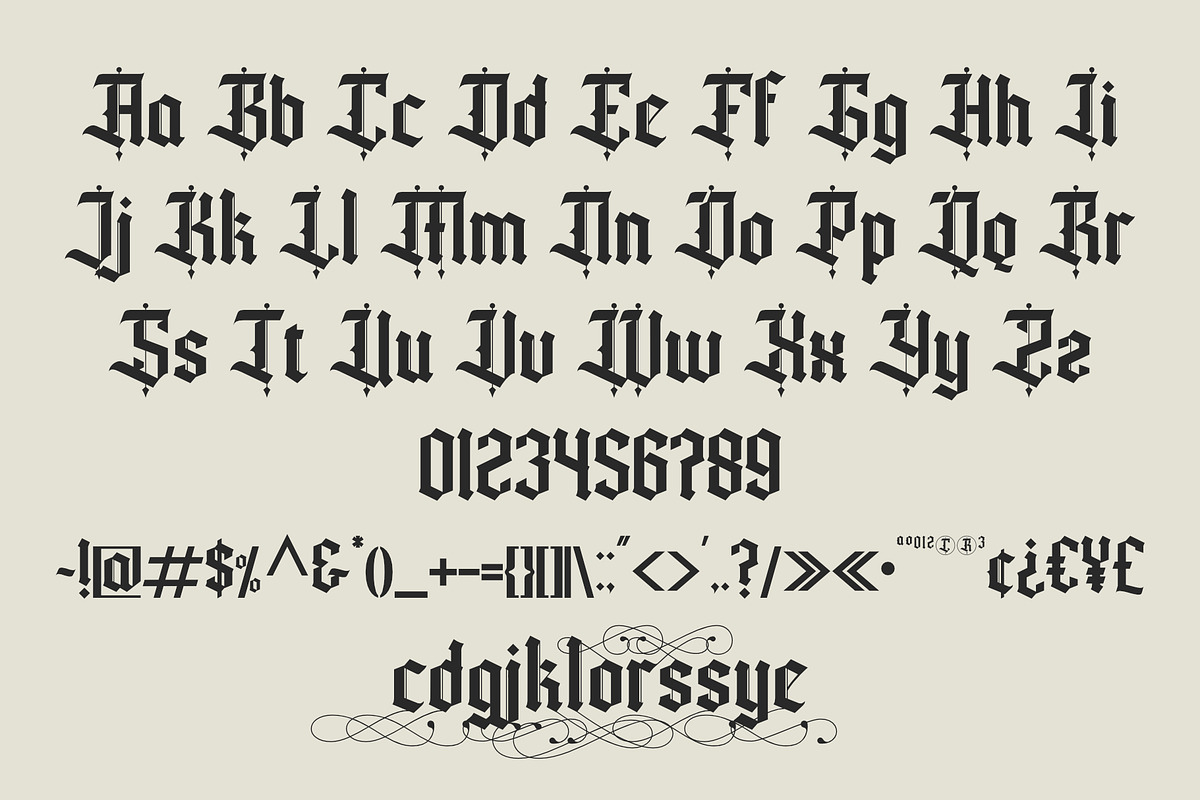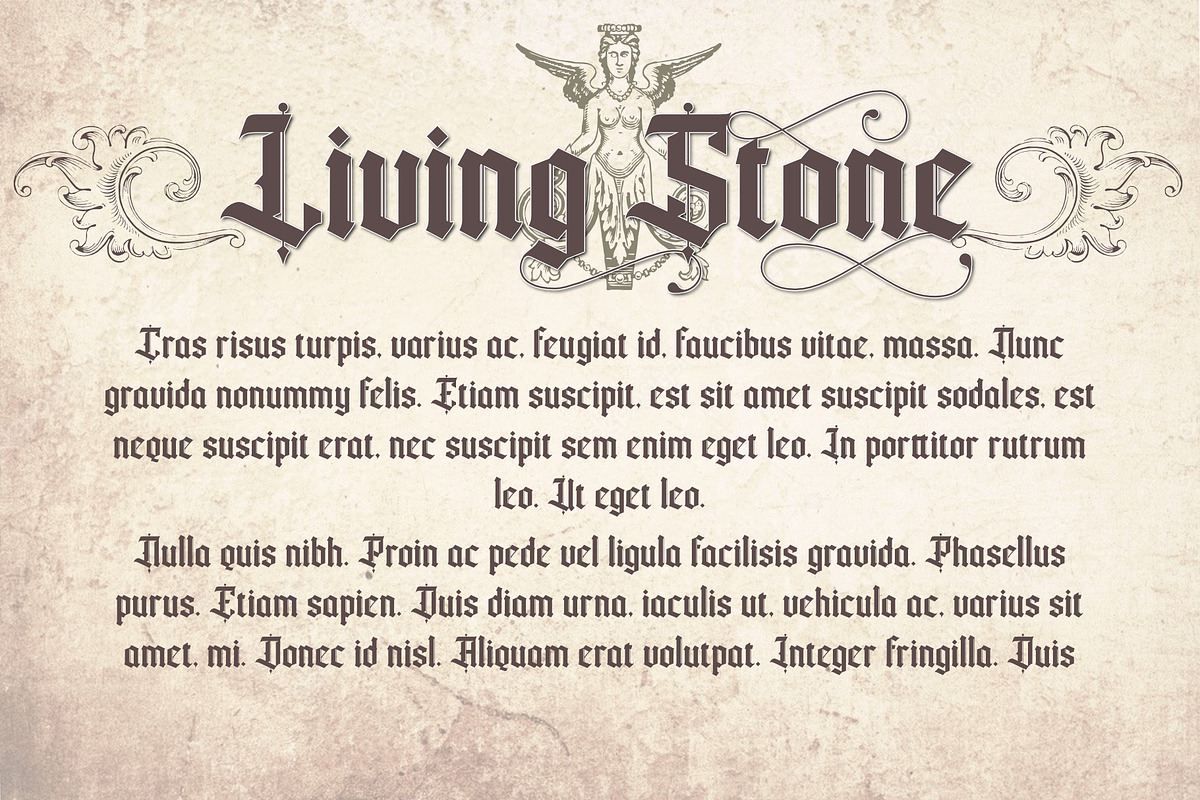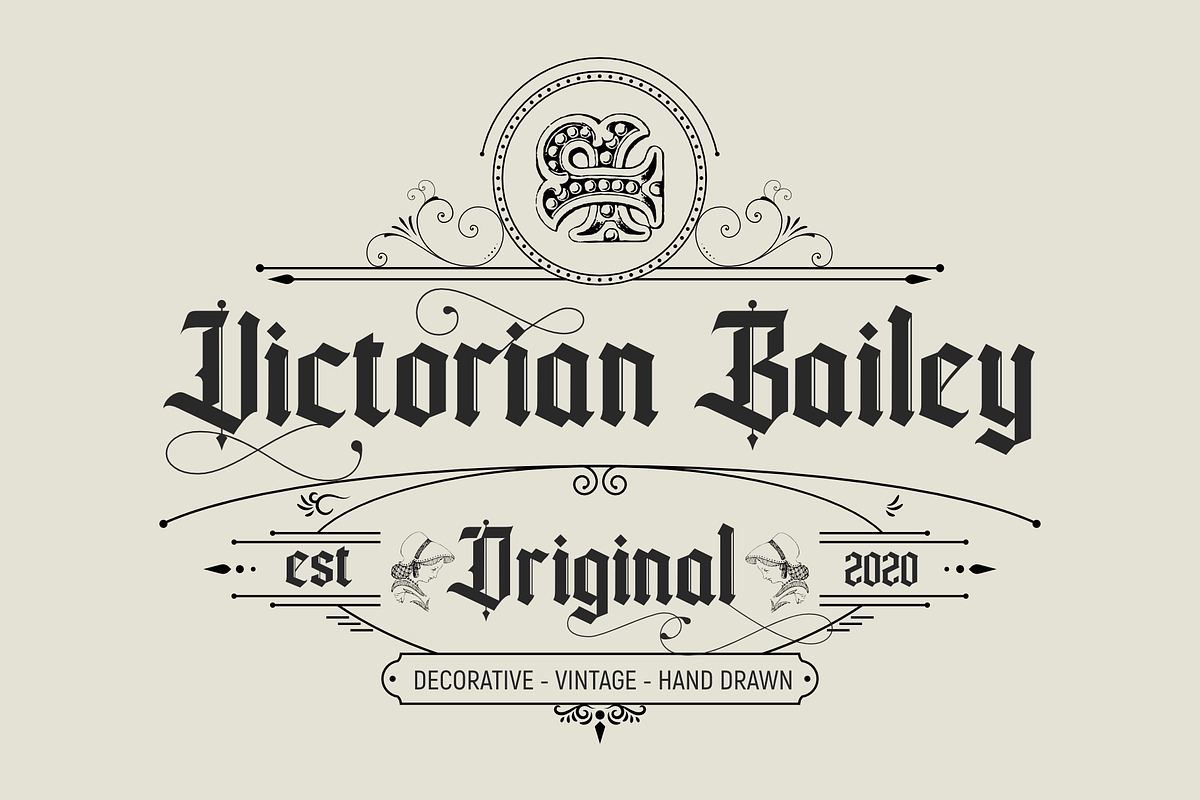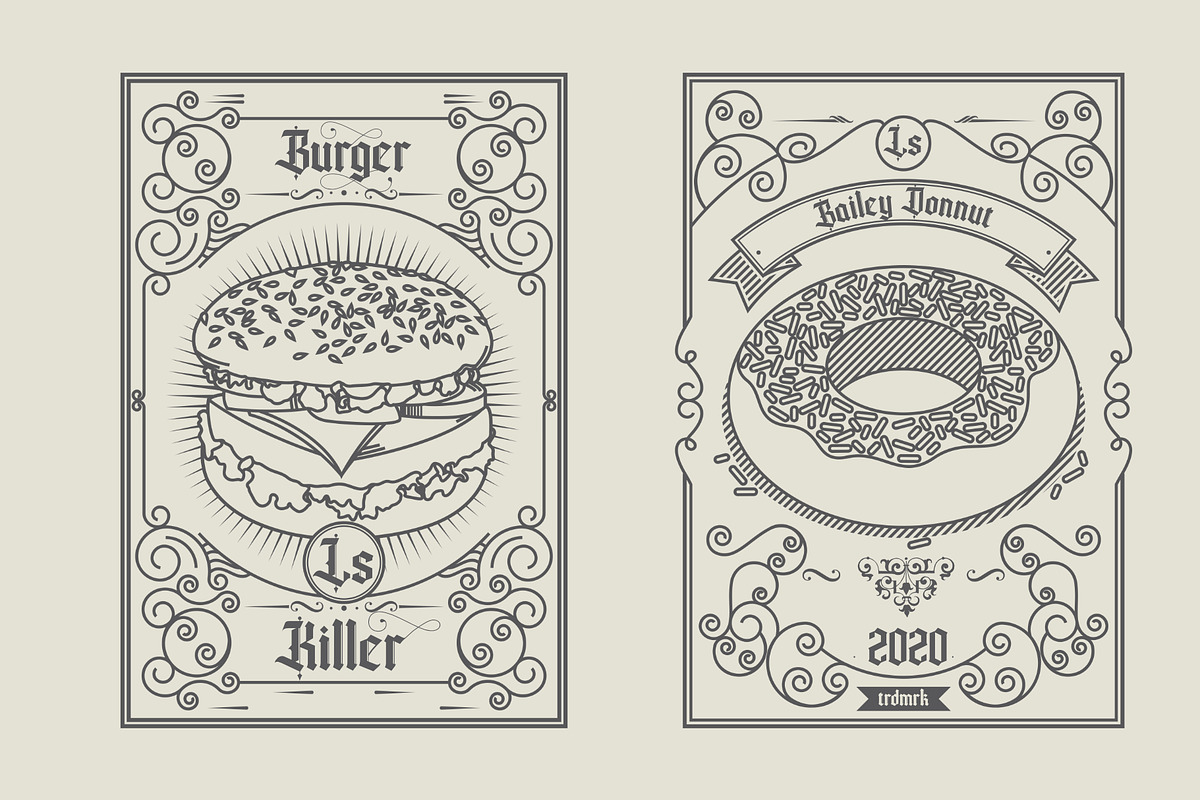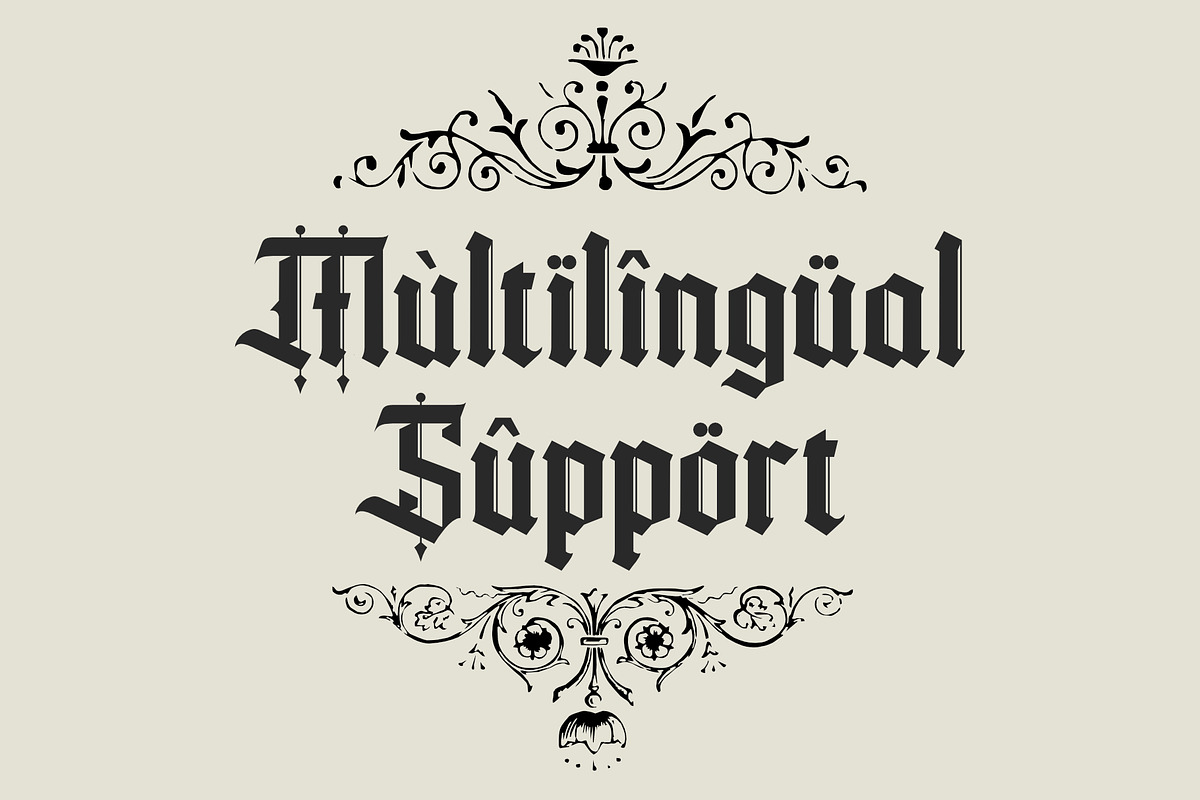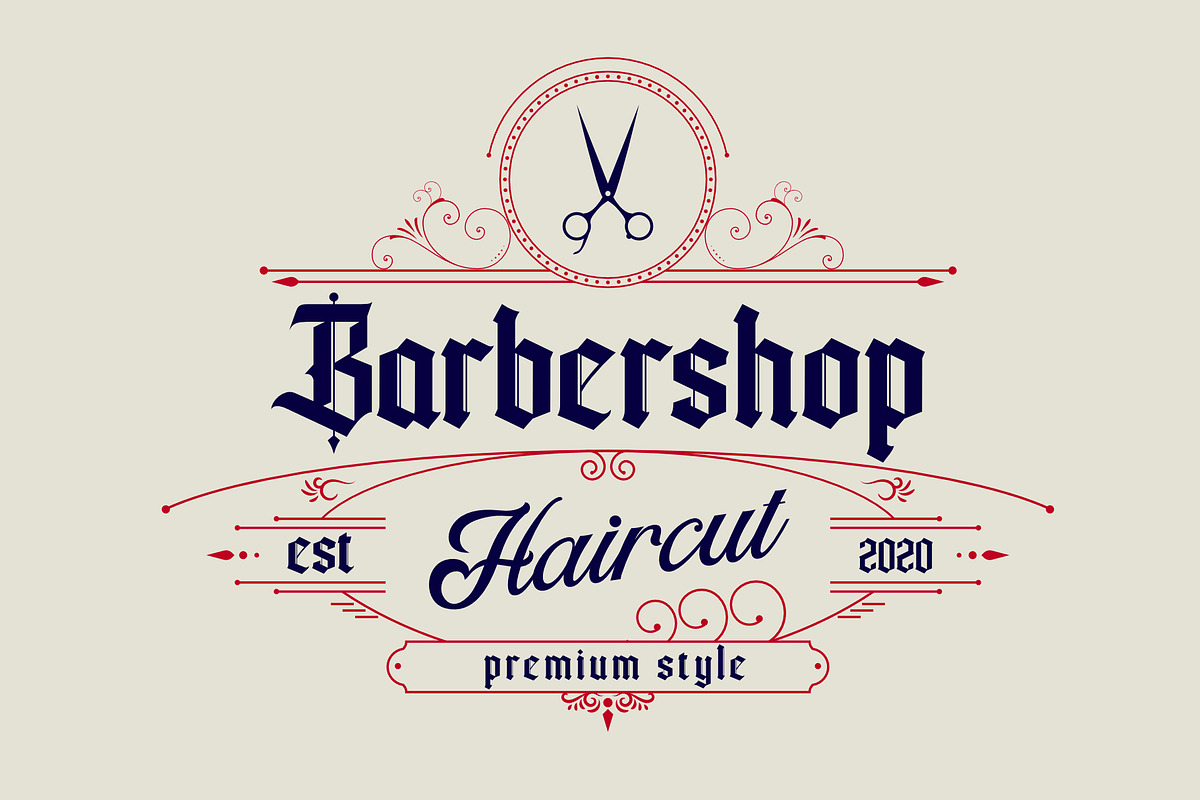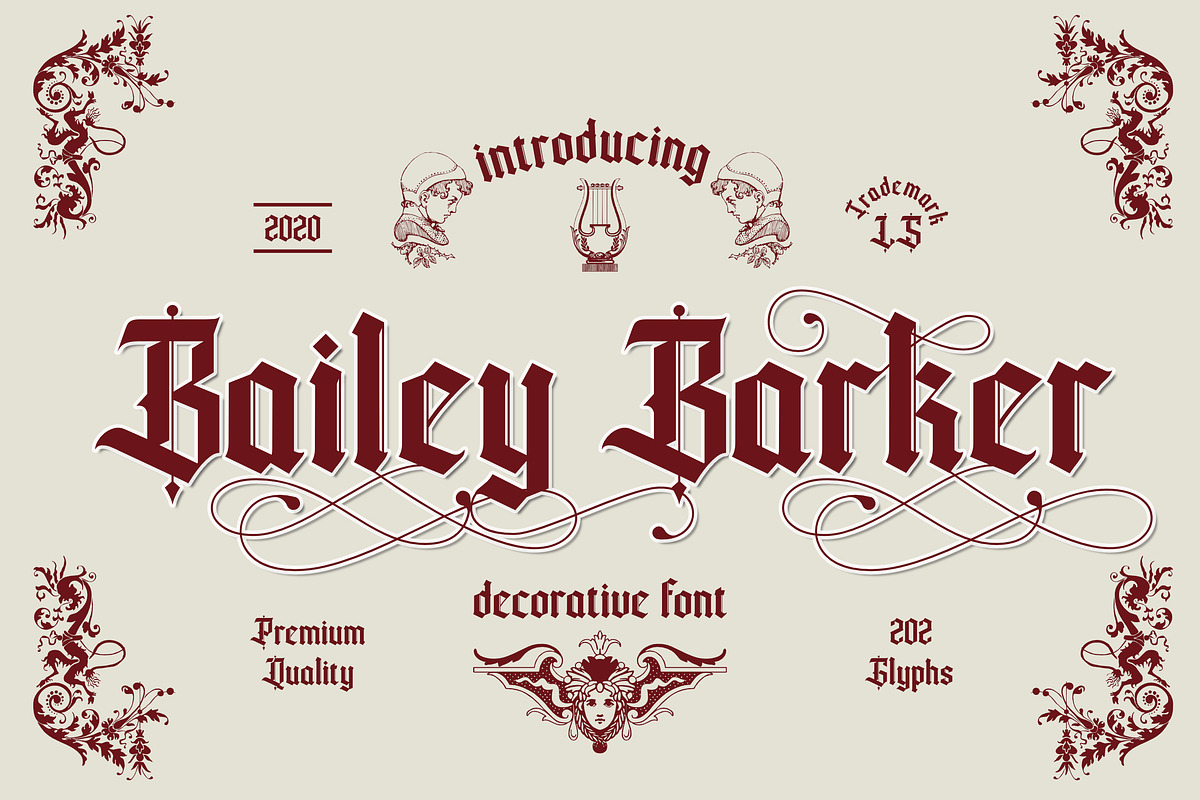
Bailey barker
Bailey barker Font
This pair was inspired by the vintage poster design that i saw on some coffee shop, It was crafted by hand specially to add natural handmade feeling in its brand identity than i make it clean with pentool.
Opentype features Bailey barker font has 202 character set included Bailey barker Font is very good looking in logo, labels, t-shirt prints, product packaging, invitations, advertising and others.